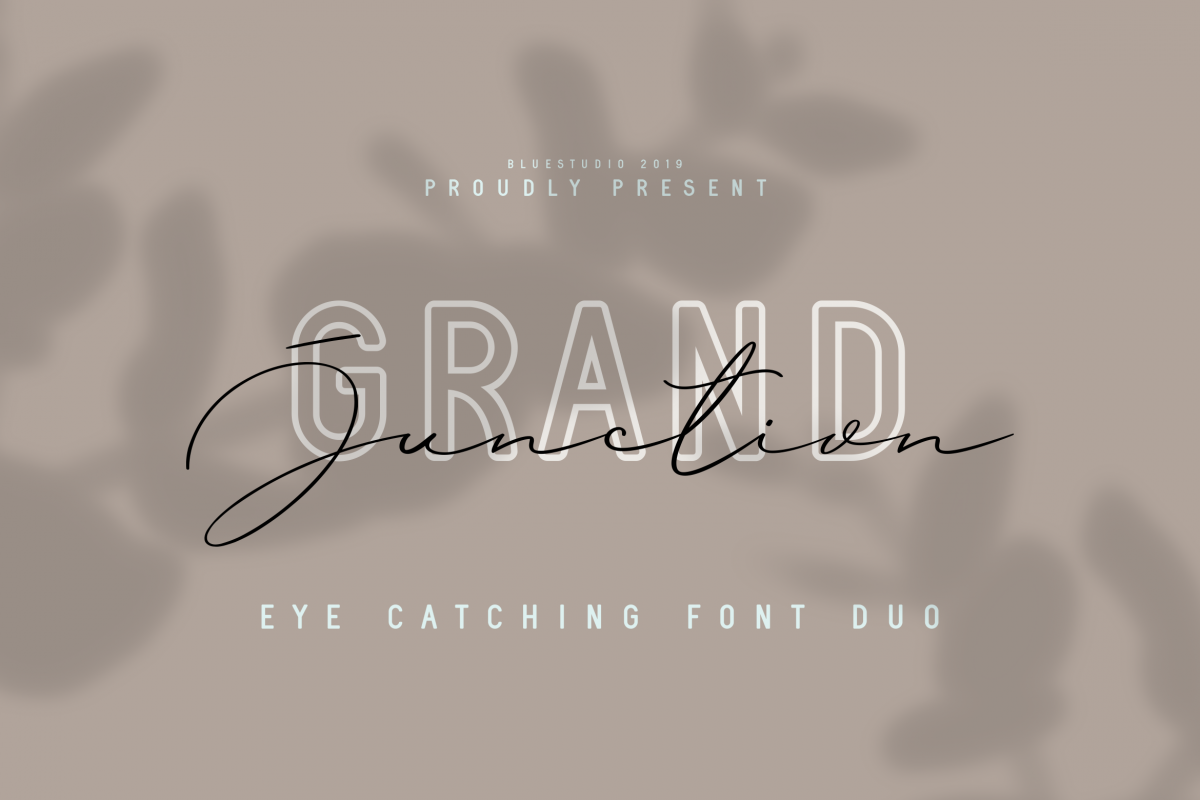
Grand Junction // Font Duo
Grand Junction Outline
Grand Junction
Grand Junction Script
Grand Junction is a modern, elegant and stylish font duo.
Grand Junction is the perfect collection of fonts for any design project that requires a light and charming feel. Use it to turn any design project into a true standout!
Multilingual support - spread your message globally AÀÁÂÃÄÅCÇDÐEÈÉÌÍÎÏIÌÍÎÏNÑOØÒÓÔÕÖUÙÜÚÛWYÝŸÆßÞþ